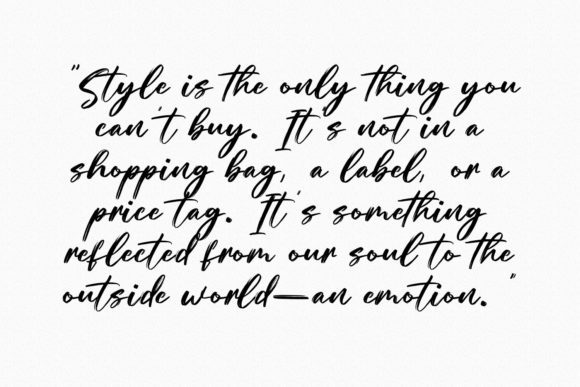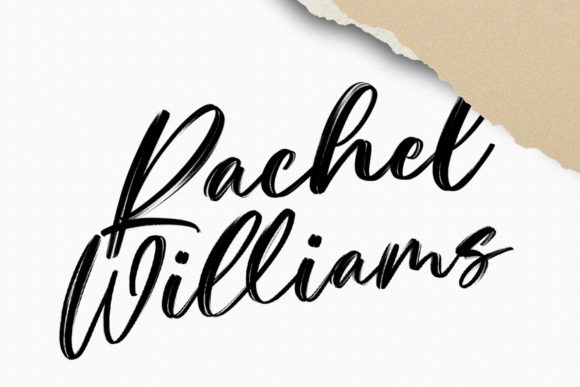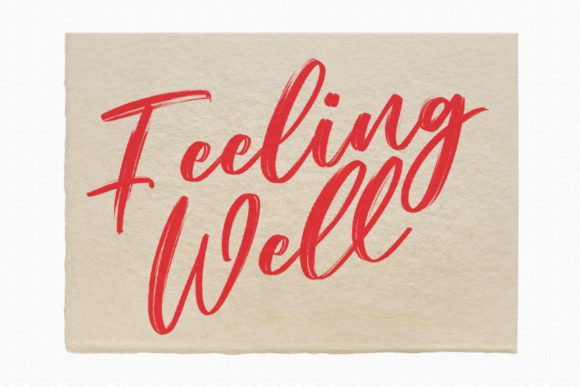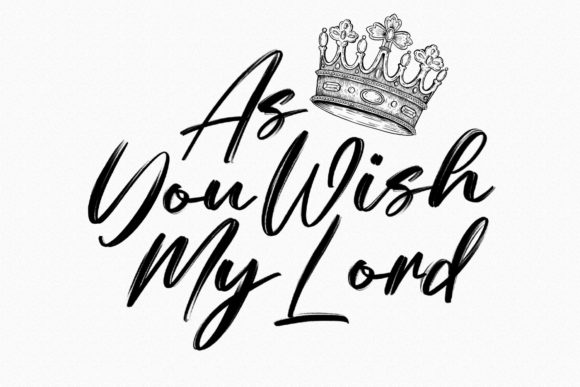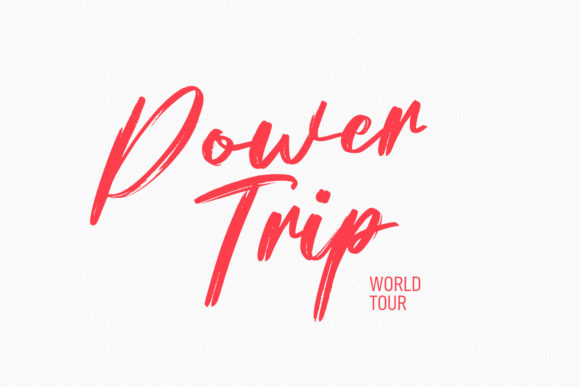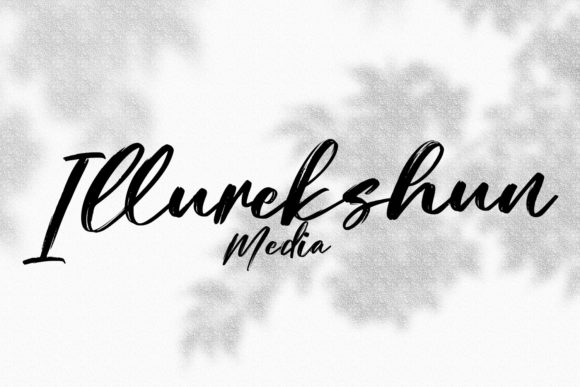
The Perfect Font for Creative Expression: A Deep Dive into Belltons Font
I’ll never forget the moment I stumbled upon Belltons Font while working on a project for a client who wanted a casual, laid-back vibe. I had been searching for hours, trying out font after font, but nothing seemed quite right. That was until I saw Belltons – a lovely, casual, and relaxed brushed handwritten font that instantly caught my eye. In this article, I’ll share my experience with Belltons, its features, and how to make the most of it in your designs.
My Honest Review of Belltons Font
As a designer, I’m always on the lookout for fonts that can elevate my work and make it more engaging. Here’s what I love about Belltons:
- ✨ Unique and eye-catching: Belltons has a distinct, hand-brushed feel that sets it apart from other fonts.
- ✅ Versatile: Whether you’re working on a project for a client or a personal creative endeavor, Belltons can adapt to any topic or theme.
- 💕 Easy to read: Despite its casual nature, Belltons is surprisingly legible, even at smaller font sizes.
Of course, no font is perfect, and Belltons has a few quirks:
- 🤔 Limited formal use: Belltons is best suited for informal or creative projects; it may not be the best choice for more formal or corporate designs.
- ⚠️ Some letter variations: While Belltons has a range of glyphs and stylistic alternates, some letters may not have as many variations as you’d like.
The Story Behind Belltons Font
Belltons Font was designed with the intention of creating a unique, casual font that could be used for a wide range of creative projects. The designer aimed to capture the feeling of hand-brushed lettering, with all its imperfections and quirks. The result is a font that’s both elegant and laid-back, perfect for designers who want to add a personal touch to their work.
| Font Name | Belltons Font |
| What type of projects is Belltons best suited for? | Belltons is perfect for informal or creative projects, such as social media graphics, blog posts, or personal crafts. |
| Is Belltons a difficult font to read? | No, despite its casual nature, Belltons is surprisingly legible, even at smaller font sizes. |
| Can I use Belltons with other fonts? | Yes, Belltons can be paired with other fonts to create a unique and interesting design. |